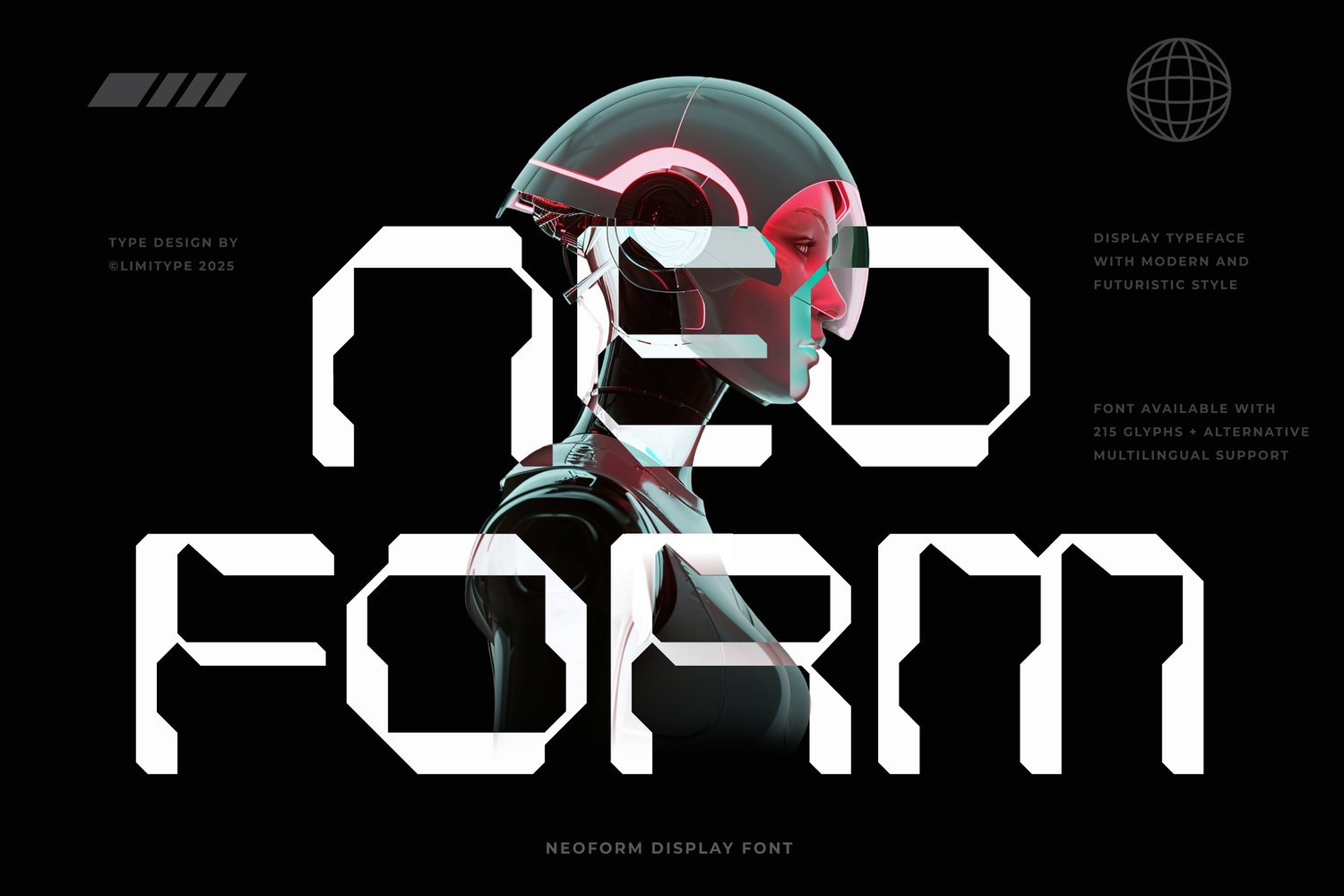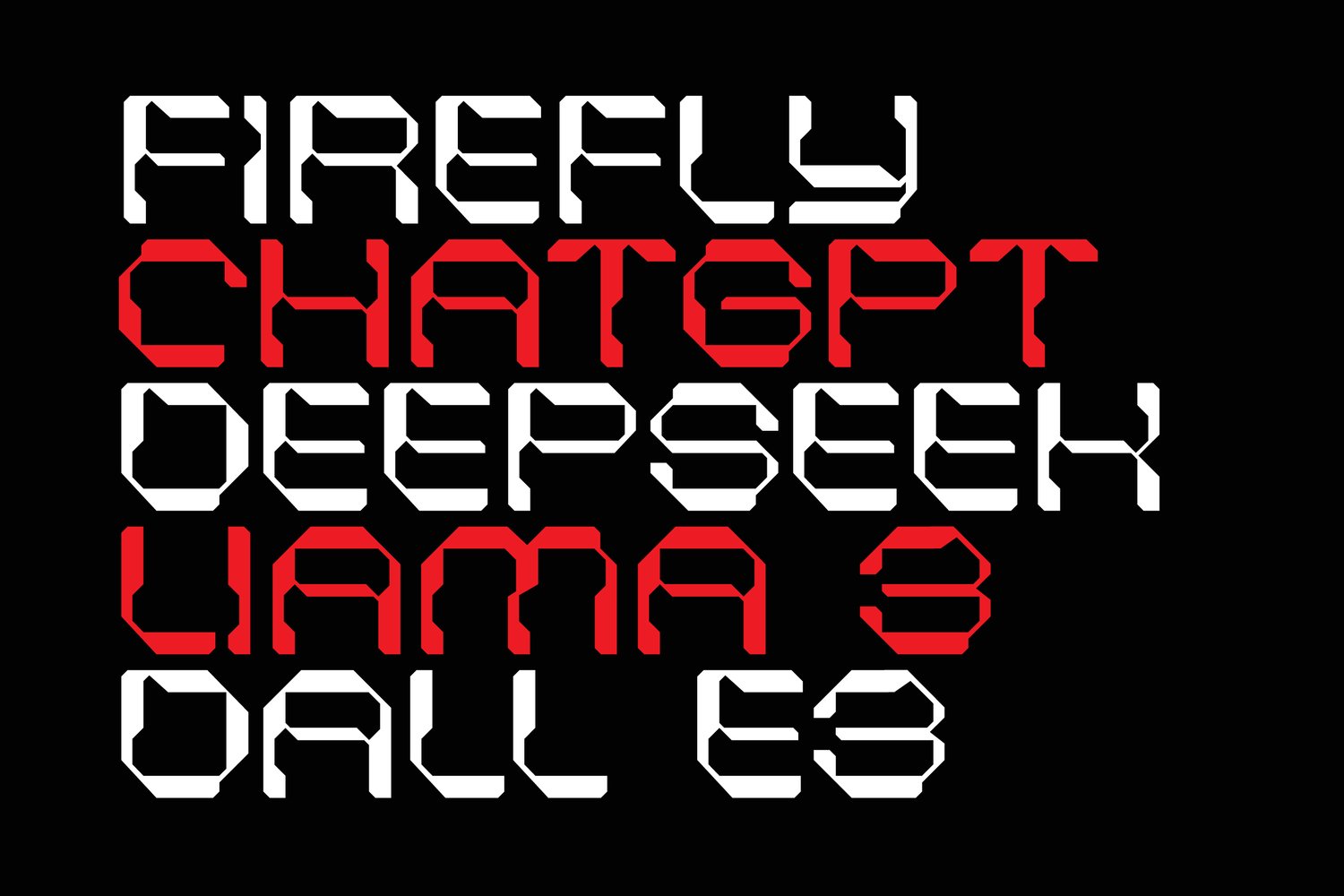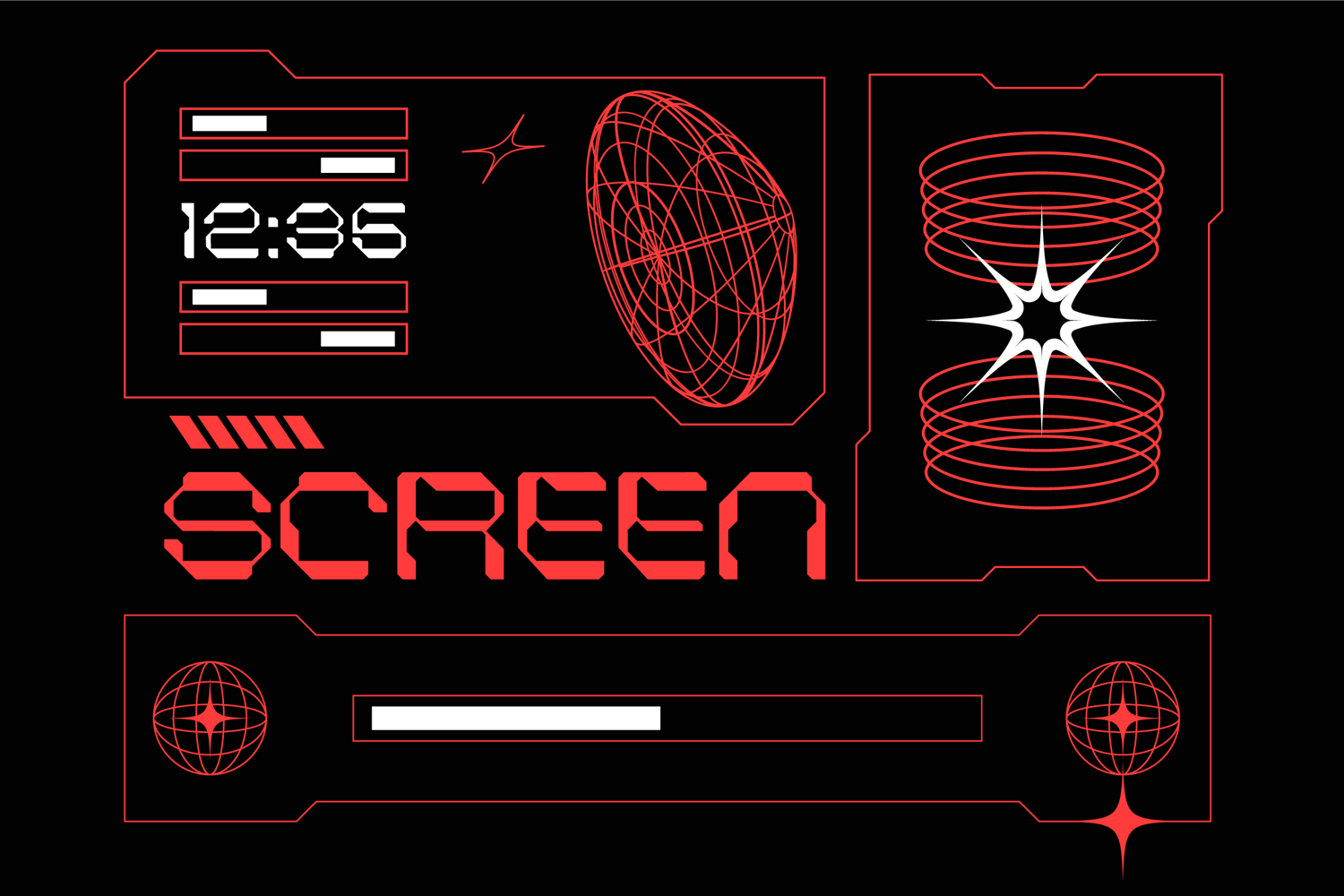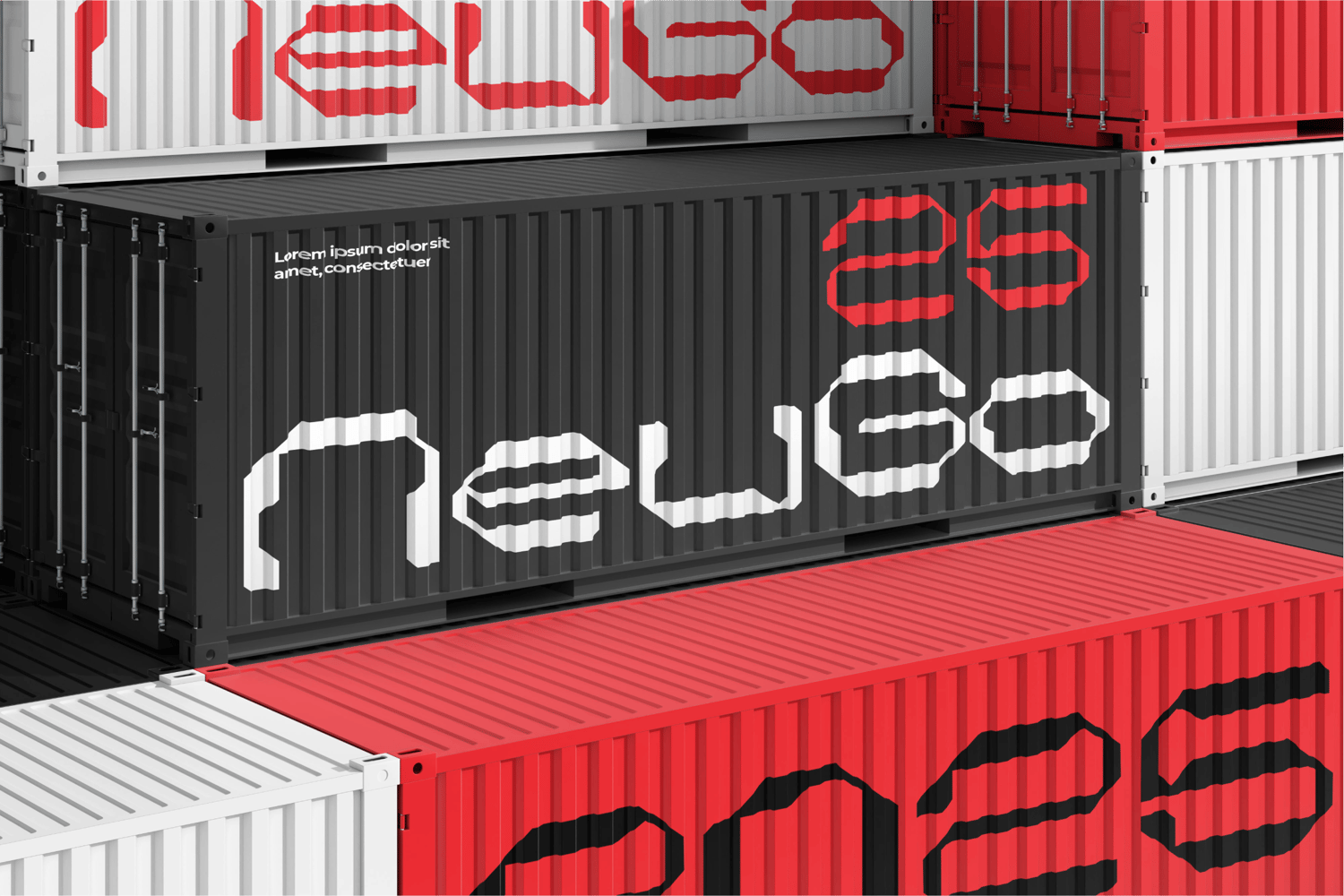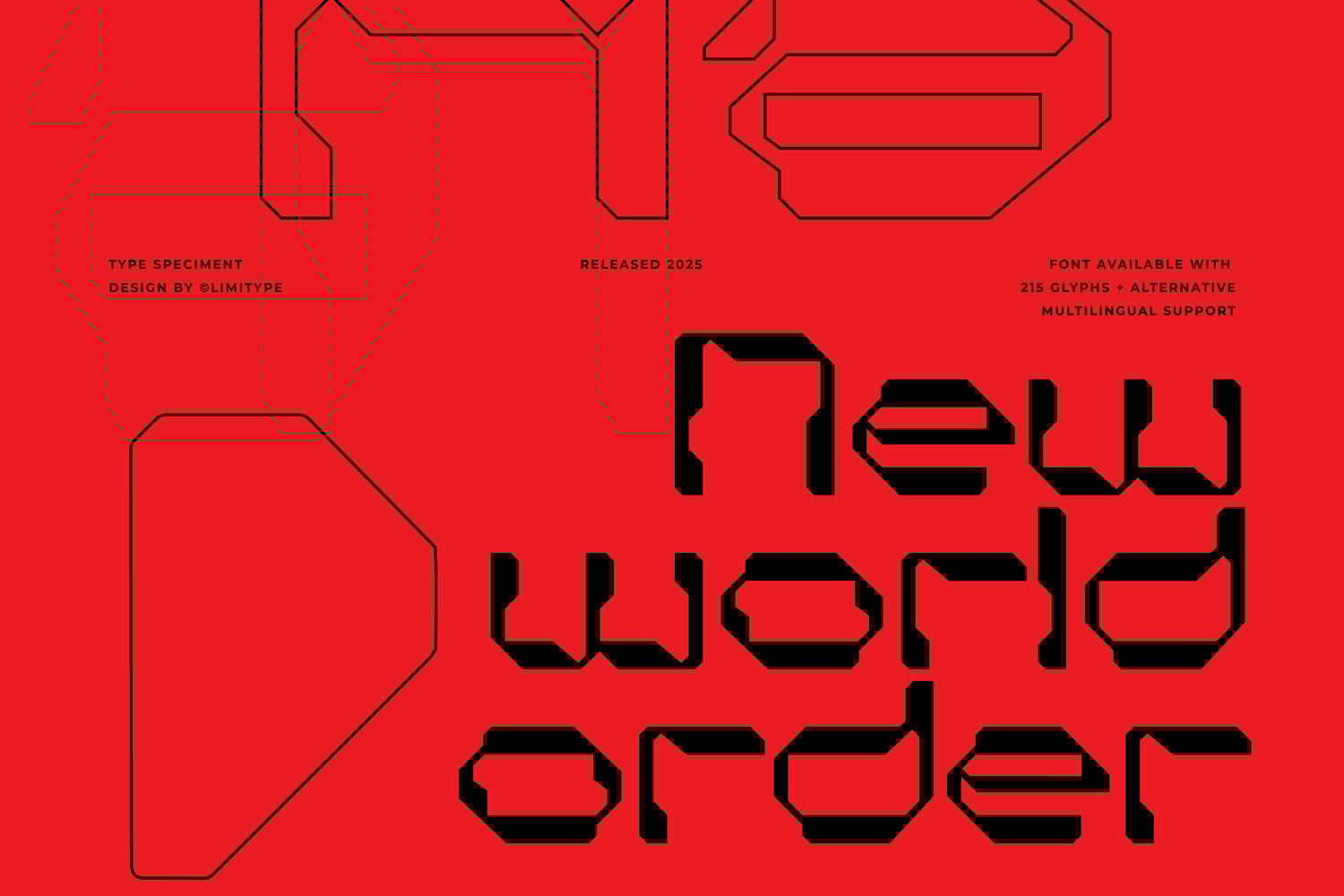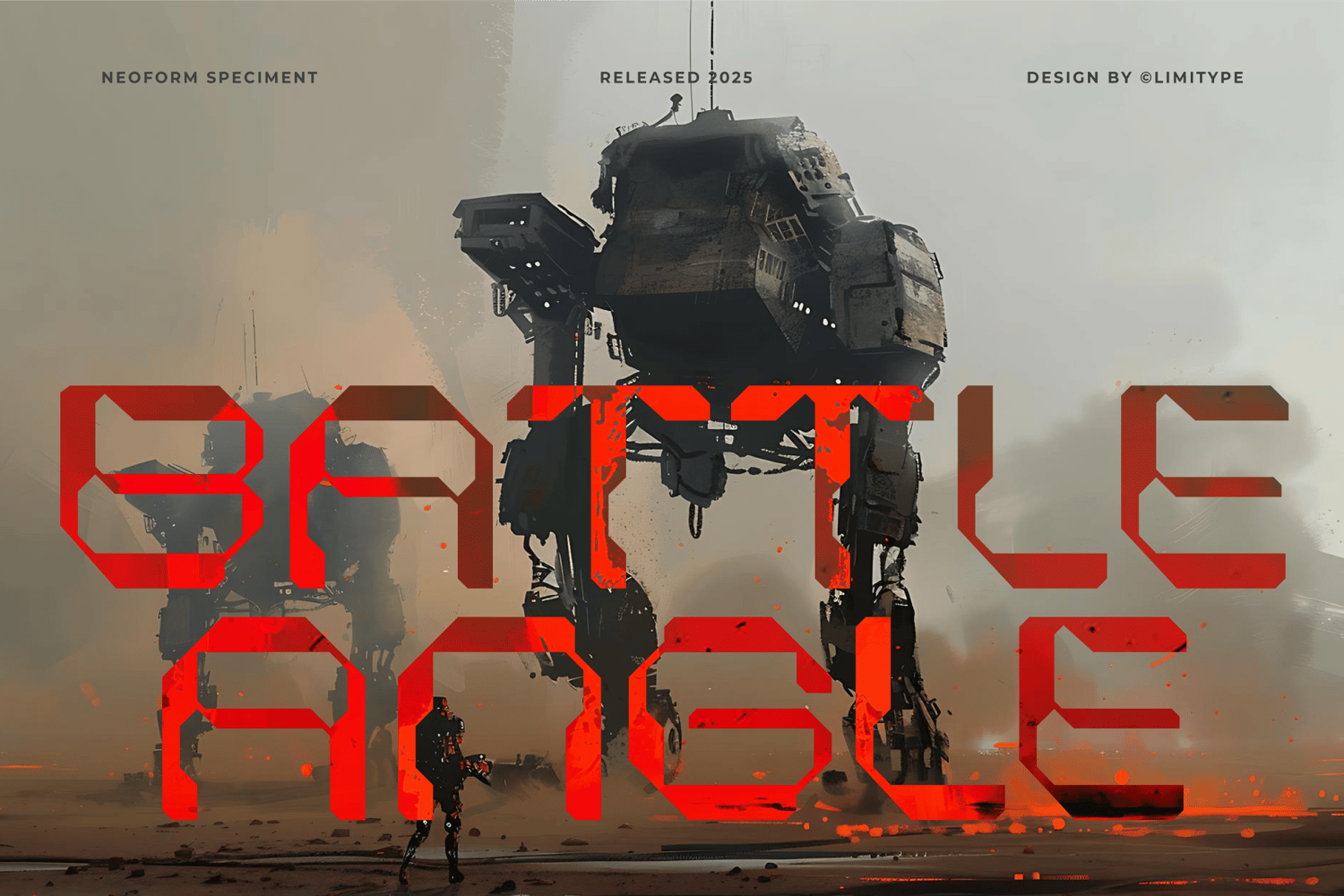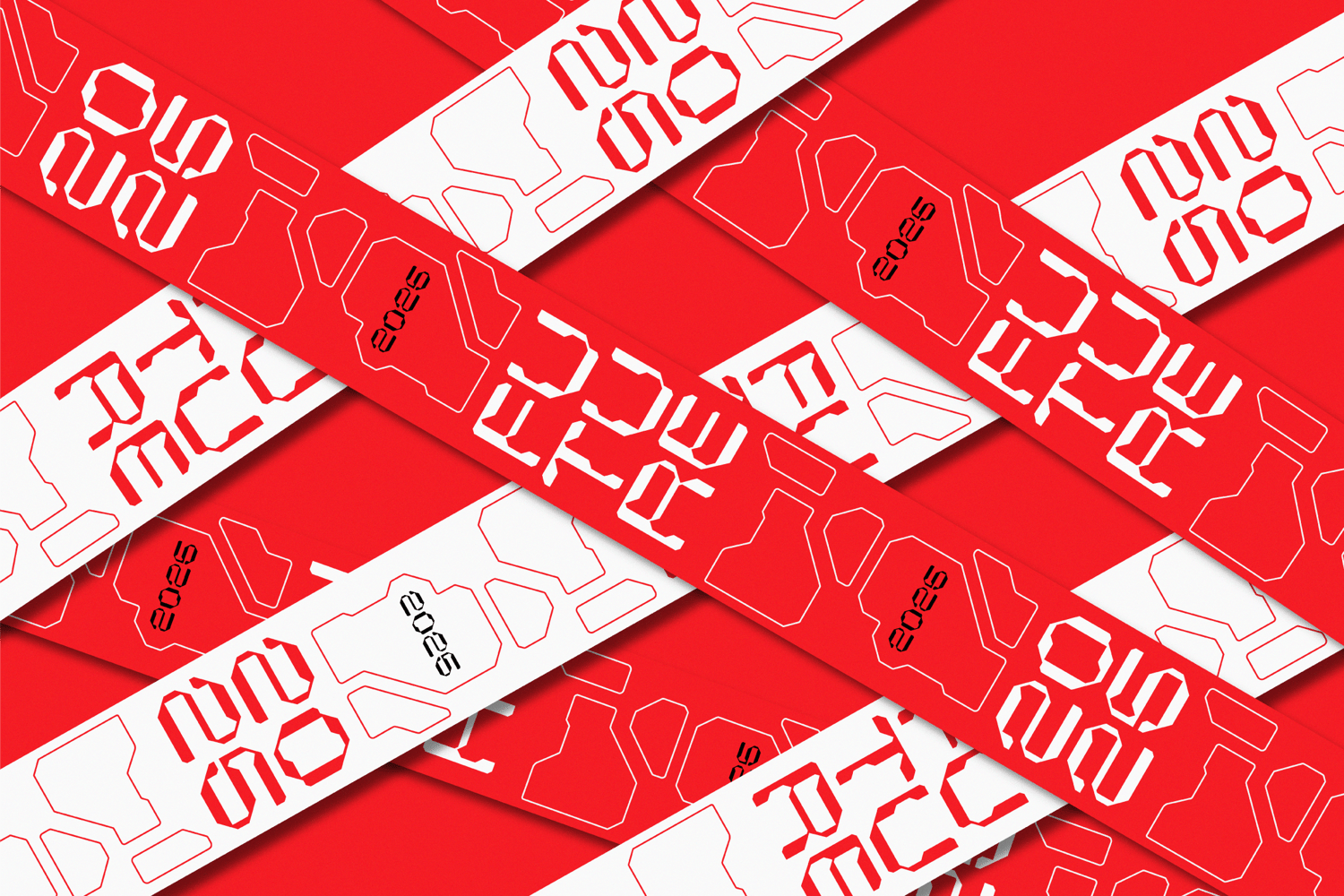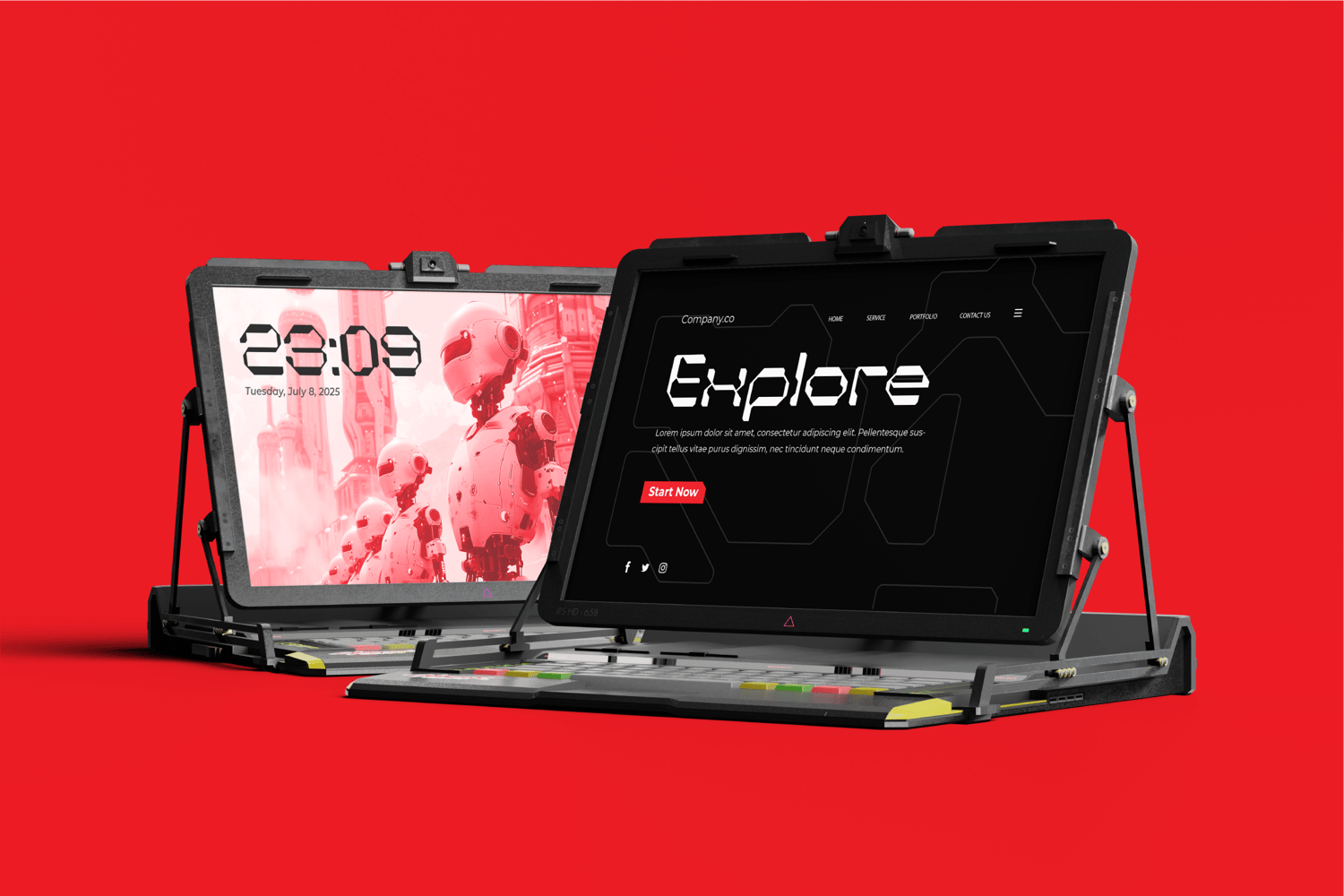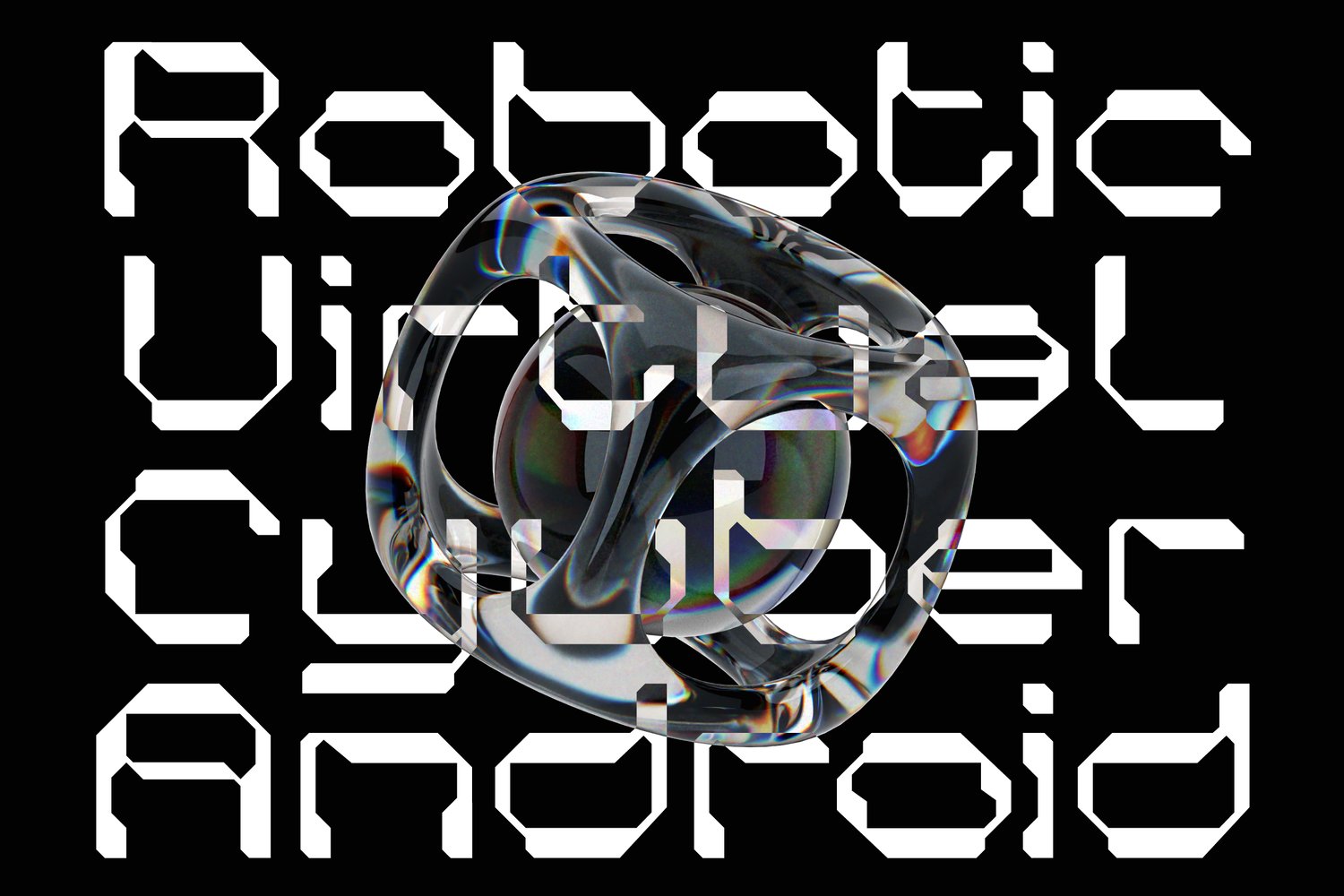
Neoform - Futuristic Font
Neoform Futuristic is a unique font with letterforms resembling circuit patterns and electronic chips. Each curve and line is distinctive, precise, and modern. It conveys a highly contemporary impression, making it suitable for technology, sci-fi themes, or any design that aims to present a sophisticated, innovative, and futuristic look.